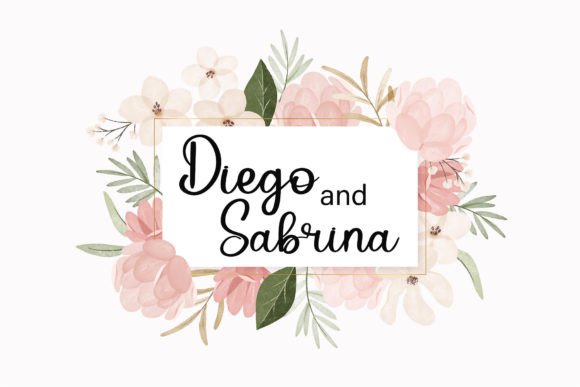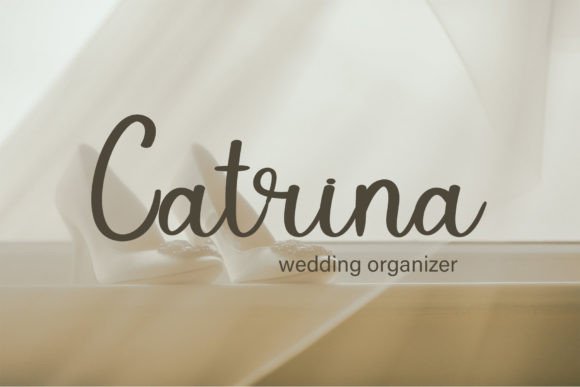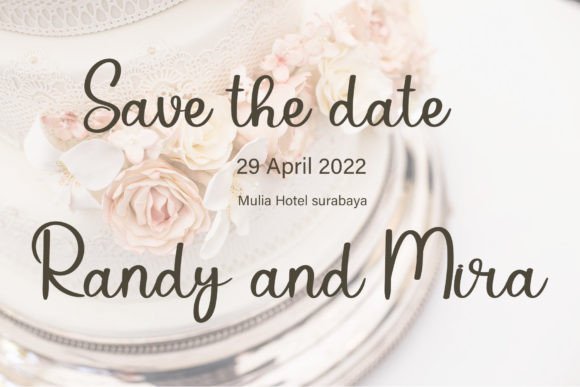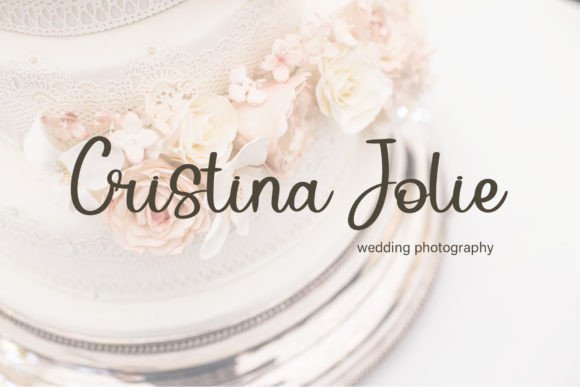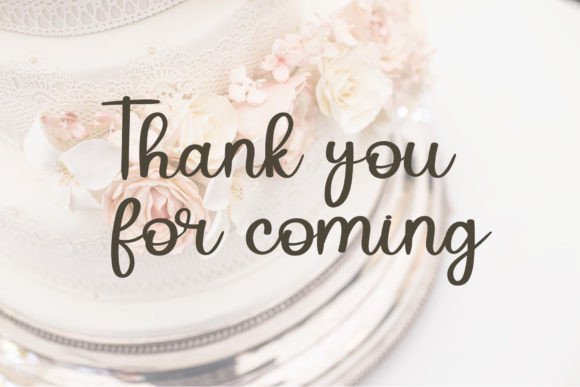
Introduction to Royal Wedding Font
Have you ever found the perfect font to bring your creative project to life? I still remember the thrill of discovering the Royal Wedding Font, a sweet and friendly handwritten font that instantly captured my heart. Its fun and relaxed vibe is perfect for writing wedding invitations, cards, or any design that needs a lovely touch. As a designer, I can attest to the value of having a high-quality, free download like this one in my design resource library.
Whether you’re working on a romantic wedding project or a creative card for a loved one, the Royal Wedding Font is sure to add a personal and elegant touch. Its transparent background makes it easy to use on any design, and its beautiful script style is perfect for adding a touch of whimsy to your work. With its versatility and high-quality design, the Royal Wedding Font is a valuable addition to any designer’s toolkit.
Key Features of Royal Wedding Font
- High-quality design resource ideal for creative projects, including wedding invitations, stationery, and other special occasions.
- Unique, elegant script font with a royal and luxurious feel, perfect for adding a touch of sophistication to any design.
Honest Review: Royal Wedding Font
I recently stumbled upon the Royal Wedding Font, a stunning design resource that’s perfect for creative projects. The free download offered by the font is a huge plus, making it accessible to designers of all levels.
What works well: ✨ The high quality of the font is evident in its clean, elegant design. The transparent background allows for seamless integration into various backgrounds, making it a versatile choice for any project. The font’s unique characteristics, such as its ornate details and classic feel, make it perfect for weddings, anniversaries, and other special occasions.
Limitations: ⚠️ The font is not as extensive as some other font families, with only a few styles to choose from. Additionally, some designers may find the font’s classic feel to be too traditional or conservative for their taste.
Overall, I’m impressed with the Royal Wedding Font. Its high quality, versatility, and classic feel make it a solid addition to any design resource library. While it may not be the most extensive font family, its unique characteristics and transparent background make it a great choice for creative projects.
- High quality design
- Perfect for weddings, anniversaries, and other special occasions
Some common use cases for the Royal Wedding Font include wedding invitations, save the dates, and wedding programs. Tips for getting the most out of the font include experimenting with different styles and sizes, and using the transparent background to create unique designs.